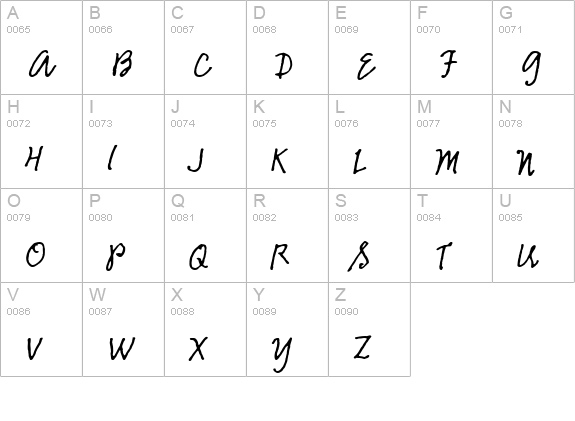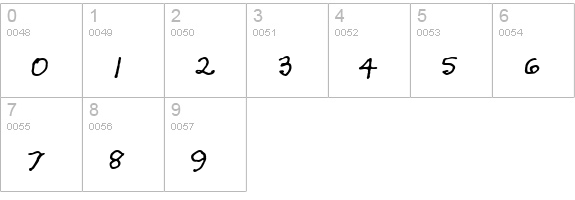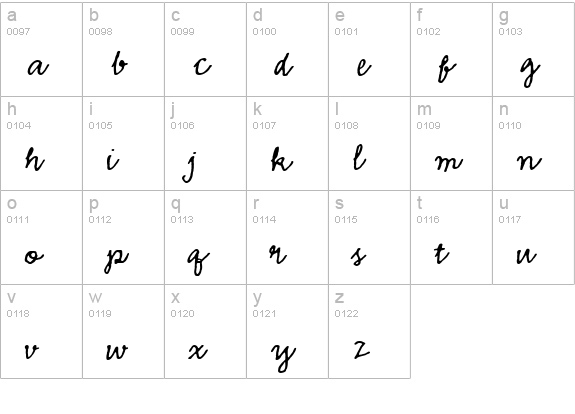
EmmascriptMVB Font Details
EmmascriptMVB font is a delightful and charming typeface that exudes elegance and sophistication. Its flowing lines and graceful curves make it perfect for adding a touch of whimsy to your designs. This unique font is not only visually appealing but also highly versatile, suitable for a wide range of creative projects. What sets EmmascriptMVB font apart is that it is available for free download at FontsMarket.com. This means you can easily access this beautiful font and incorporate it into your work without any cost. Whether you're designing invitations, logos, or branding materials, EmmascriptMVB font will add a touch of personality and flair to your creations. With its free availability and stunning design, EmmascriptMVB font is a must-have for any designer looking to elevate their projects with a touch of elegance and style. Download it today and unleash your creativity with this captivating typeface.